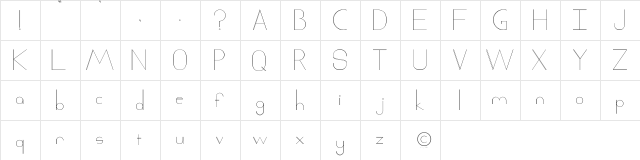
Xack Regular
Design Context for Xack Typeface
Xack is a composed and adaptable typeface that performs quietly and consistently across a wide range of design contexts.